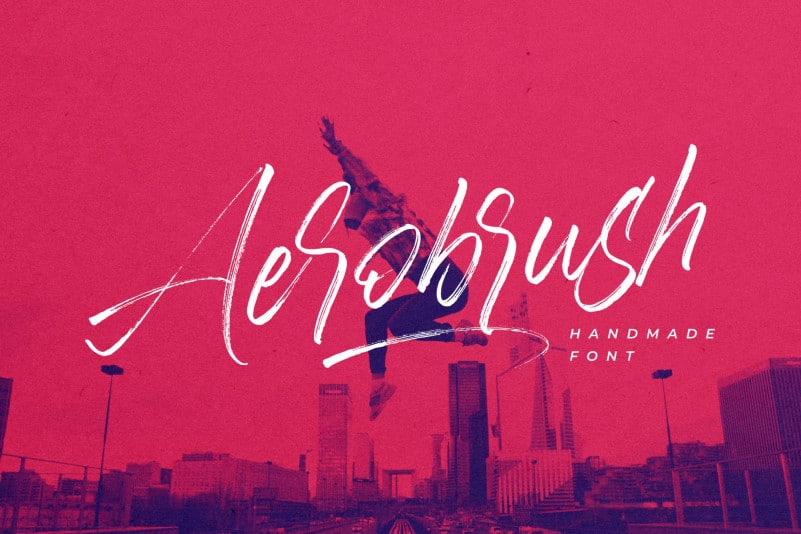
Aerobrush Brush Font
Introducing! Aerobrush Font! Aerobrush displays the impression of a modern and youthful font, and of course it doesn’t escape the natural impression. Aerobrush has a detailed texture brush that makes it even more distinctive.
This font is accompanied by Lowercase and Uppercase alternates, and is equipped with swashes that you can access by typing the A-E character.
Aerobrush Brush is very capable of making your design more attractive, such as T-shirt, banners, posters, packaging, merch, branding, and many others.